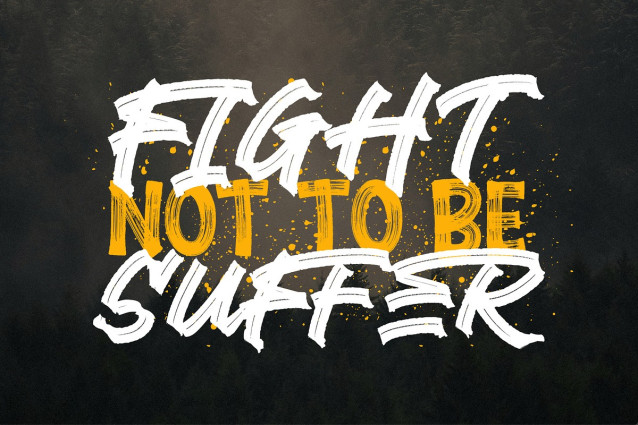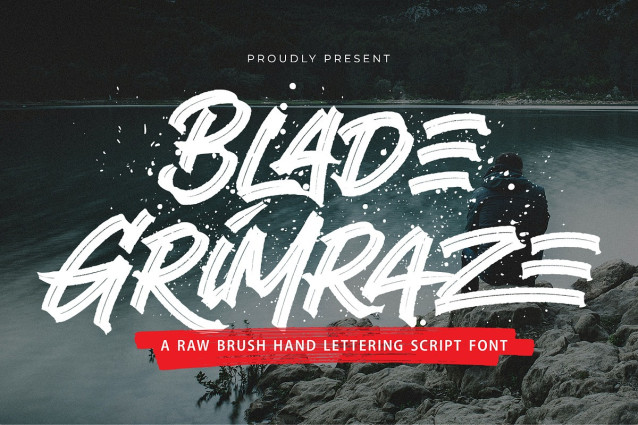
Grimraze Brush Font
Grimraze Brush Font is a wild, aggressive hand-lettered brush font infused with untamed energy and raw street style. Its bold strokes and authentic brush textures evoke a rebellious attitude, perfectly suited for designs that demand attention.
Inspired by graffiti culture and urban grit, Blade Grimraze delivers a visceral visual punch—ideal for streetwear branding, music album covers, extreme sports posters, skate culture graphics, and bold packaging that needs to radiate edge and personality. Whether you’re designing for the underground or the spotlight, Blade Grimraze lets your message come through loud, unapologetic, and full of fire.